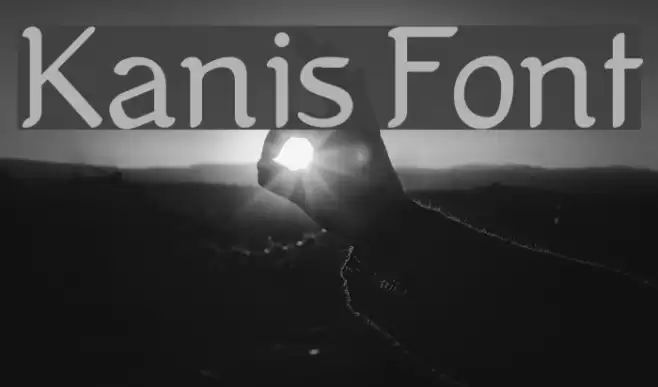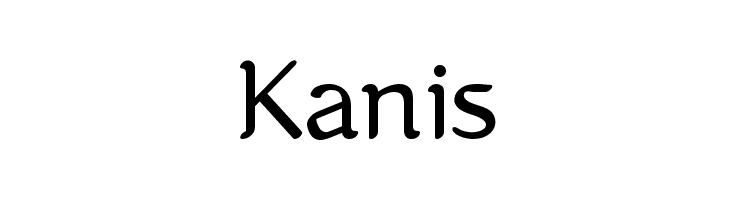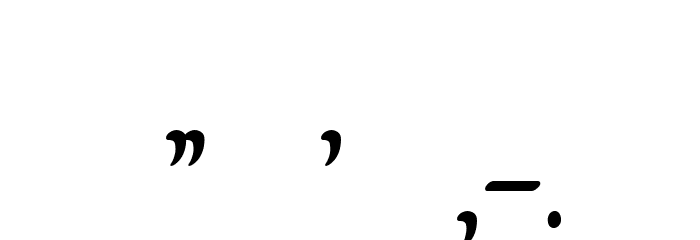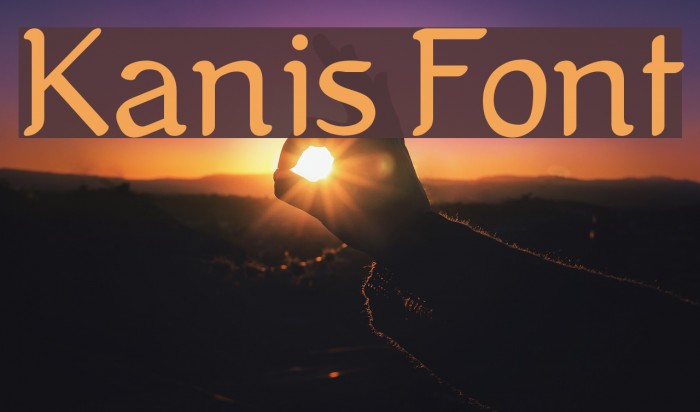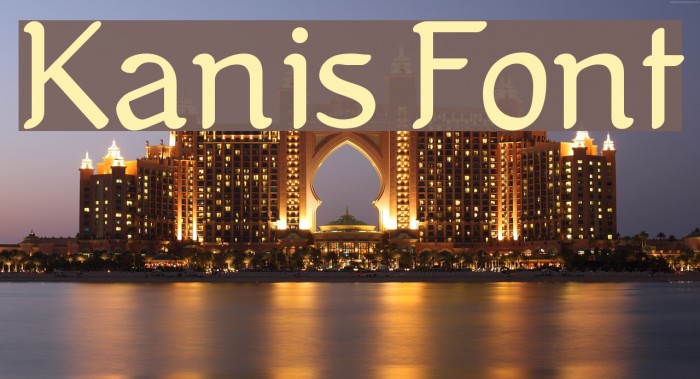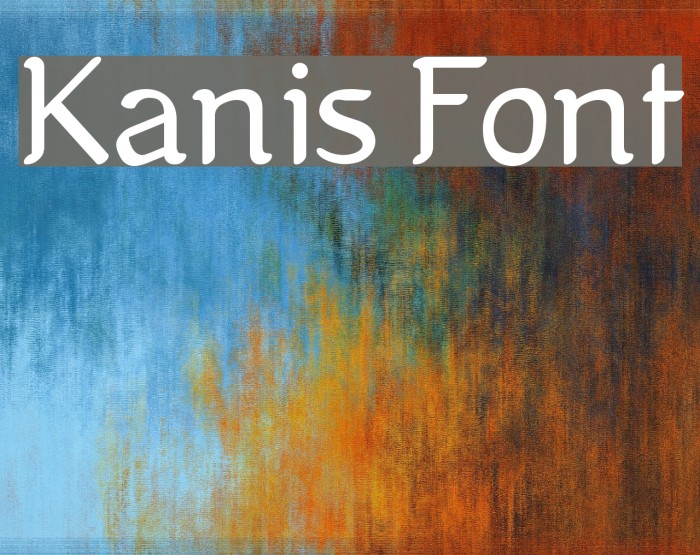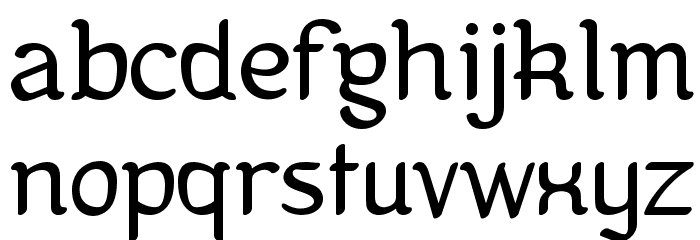
Kanis Font
Kanis Description
This font features a playful and slightly whimsical design, characterized by its rounded and smooth curves. The letters have a consistent stroke width, giving it a uniform appearance. The uppercase letters are bold and prominent, while the lowercase letters maintain a friendly and approachable style. The font includes a full set of numerals and a variety of punctuation marks, making it versatile for different types of text. Its unique style is both modern and slightly retro, making it suitable for creative projects.
A playful, rounded font with consistent stroke width and a modern-retro vibe from Uncategorized fonts.
- Proposed Projects: Ideal for children's books, playful branding, creative posters, and casual invitations.
- Overall Style: Playful, Modern, Retro